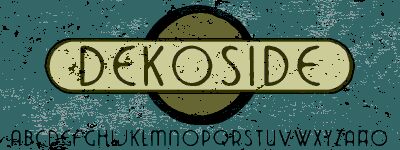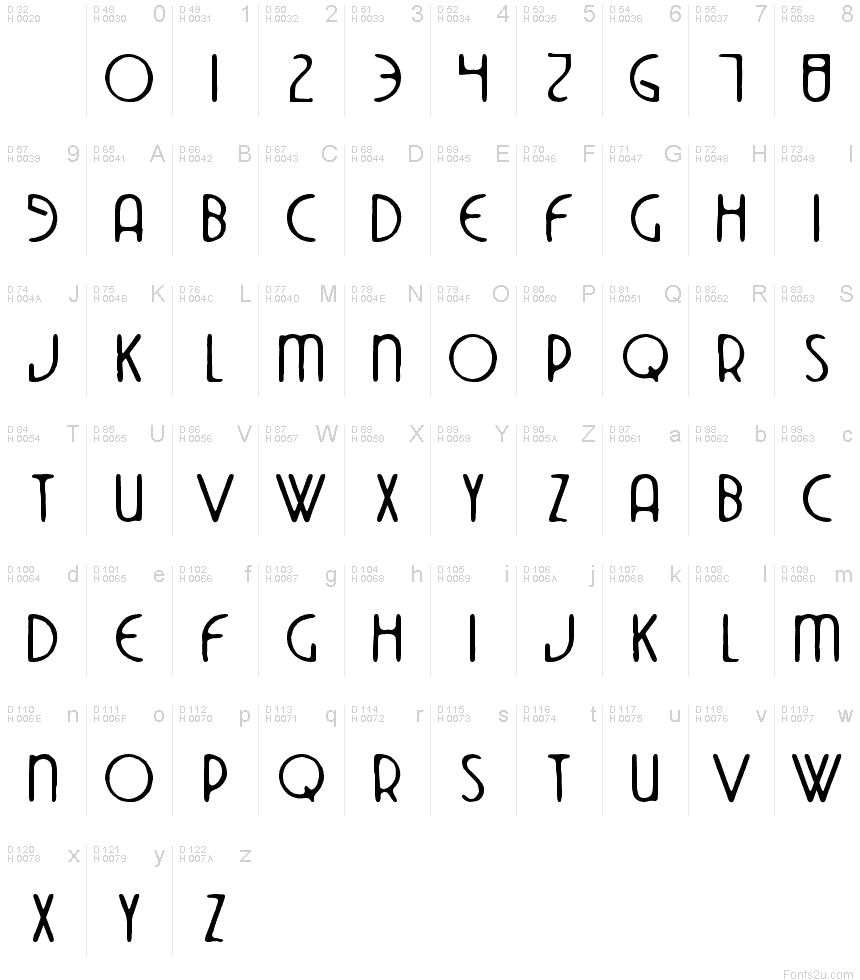
DekoSide
DekoSide font is a free retro display typeface that looks like it was drawn with a thick, inky marker on a café window. The tall, narrow letters wobble just enough to feel human, with rounded corners and tube-like strokes that echo 60s signage and hand-painted shop fronts. It has a loose, rhythmic texture that keeps words lively without becoming chaotic.
This free font shines on posters, vintage-themed logos, coffee or craft packaging, event flyers, zines, and quirky social graphics. Using DekoSide in oversized titles with a bit of extra tracking lets the organic shapes breathe, while a clean sans-serif body typeface underneath keeps layouts grounded and easy to read.